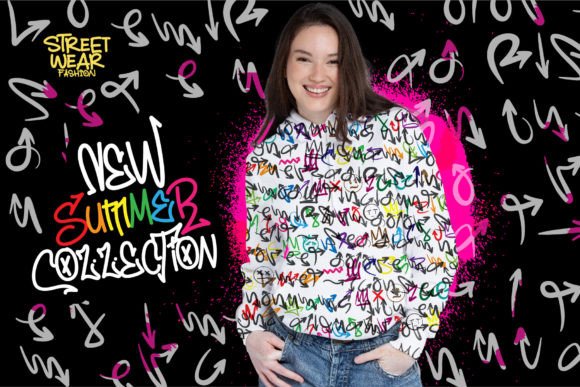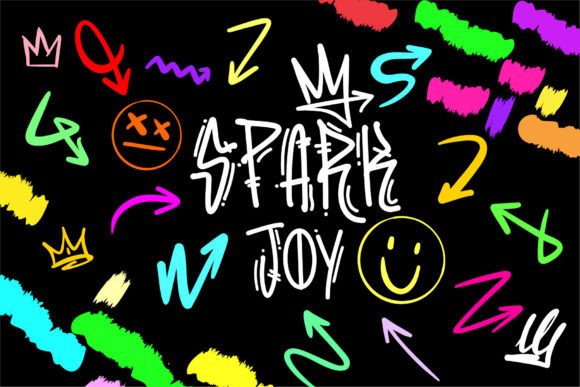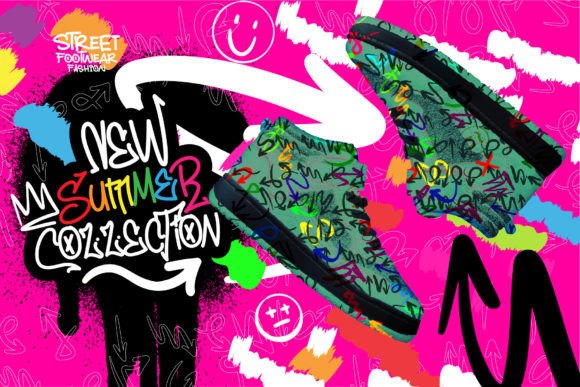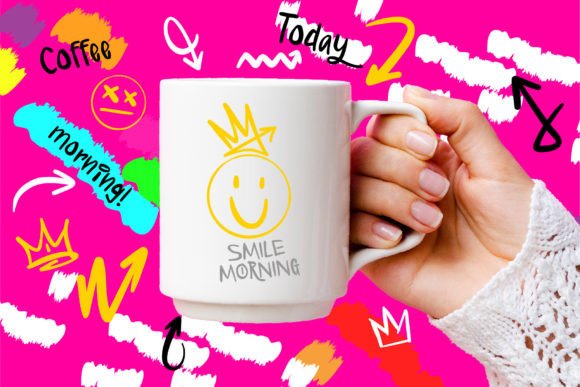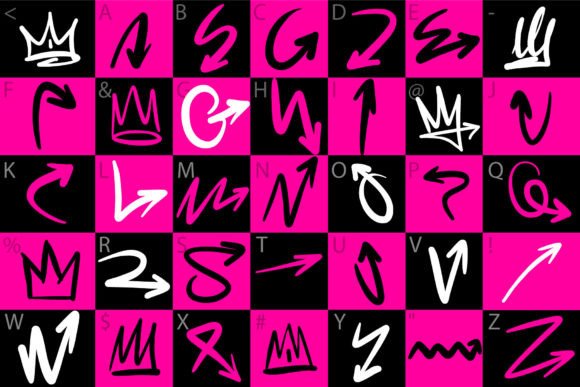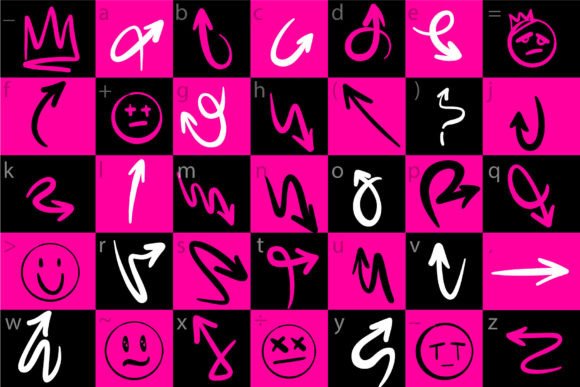
Unleashing Creativity with Arrows Graff Font
Enter the Arrows Graff Font, a unique collection of graffiti-styled dingbats designed to take your designs to the next level. With its edgy, urban aesthetic, this font is perfect for creating attention-grabbing graphics for t-shirts, sportswear, advertisements, and more. Whether you’re a seasoned pro or just starting out, the Arrows Graff Font is an invaluable tool in your design arsenal.
By incorporating the Arrows Graff Font into your designs, you can add a touch of authenticity and personality that sets your work apart from the crowd. Its versatility and creative potential make it an essential addition to any designer’s toolkit.
Arrows Graff Font Key Features
- Font Family: Arrows Graff, a unique font designed for creative and modern use.
- Unique Characteristics: Features a unique blend of modern and vintage elements, making it perfect for designs that require a touch of creativity and sophistication.
Arrows Graff Font Review
Overall, I think the Arrows Graff Font is a decent choice for designers looking for a modern and edgy font. ✨ Here are some things that work well:
- The font has a unique, graffiti-inspired aesthetic that can add a touch of urban flair to your designs.
- It’s highly customizable, with a wide range of font sizes, styles, and colors to choose from.
- The font is highly legible, even at smaller sizes, making it a great choice for body text or headings.
- The font can be a bit too playful for some designs, and may not be suitable for more formal or conservative projects.
- The font’s graffiti-inspired aesthetic may not be to everyone’s taste, and may not be suitable for designs that require a more traditional or professional look.
- The font can be a bit difficult to read at very small sizes, and may require careful formatting to ensure readability.
Overall, I think the Arrows Graff Font is a great choice for designers who want to add a bit of edge to their designs. It’s highly customizable and highly legible, but may not be suitable for all types of projects. With careful formatting and a clear understanding of the font’s limitations, I think it can be a valuable addition to any designer’s toolkit.
Getting the Most Out of Arrows Graff Font
Here are some tips to get the most out of Arrows Graff Font:
- Use it for headings and titles to add a touch of modernity to your designs.
- Combine it with other fonts for a unique and creative look.
Arrows Graff Font is commonly used in:
- Modern and minimalist designs.
- Business and corporate presentations.
- Creative and artistic projects.